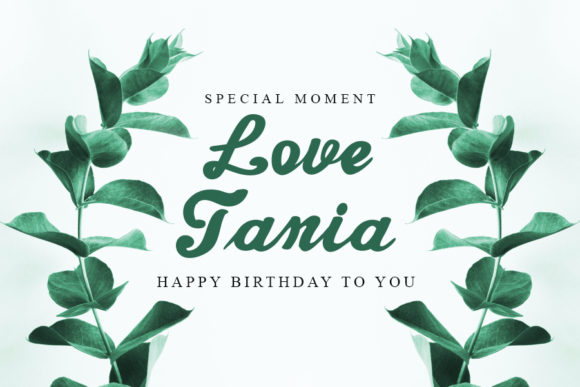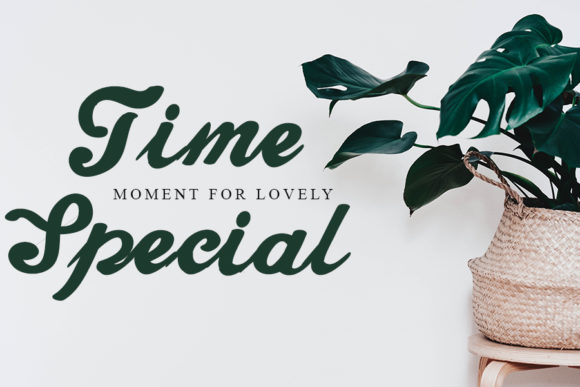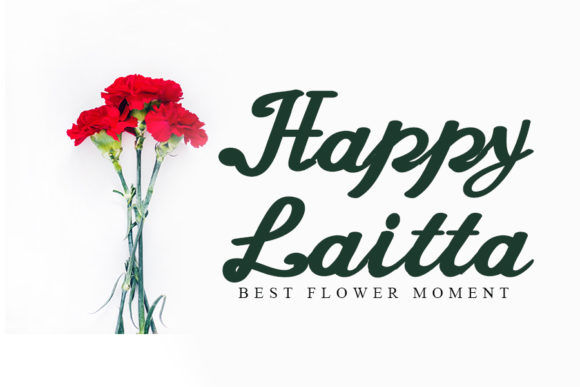
Bittale Font: Elevate Your Designs with Elegance and Sophistication
In the world of typography, a well-crafted font can make all the difference in elevating your designs to new heights. Introducing Bittale, an exquisite handwritten font that is sure to capture your heart. With its perfect blend of classy calligraphic influences and modern freshness, Bittale is poised to become your new favorite font.
The Story Behind Bittale
Bittale is more than just a font – it’s a masterpiece that showcases the art of handwriting in a digital format. Its creation is a testament to the power of typography in communicating emotions and personality. Whether you’re a designer, craftsperson, or simply someone who appreciates beautiful writing, Bittale is sure to leave a lasting impression.
What Makes Bittale Special?
So, what sets Bittale apart from other fonts? Here are a few key features that make it truly special:
- Classy Calligraphic Influences: Bittale’s roots in traditional calligraphy are evident in its elegant strokes and refined letterforms. Each character is carefully crafted to evoke a sense of sophistication and luxury.
- Contemporary and Fresh: Despite its classic influences, Bittale feels remarkably modern and fresh. Its unique blend of traditional and contemporary elements makes it perfect for designs that require a touch of elegance and whimsy.
- Handwritten with Love: Bittale’s handwritten nature gives it a personal and intimate feel that’s hard to replicate with digital fonts. Each letter and word is carefully crafted to convey a sense of warmth and personality.
Uses for Bittale Font
Bittale’s versatility makes it suitable for a wide range of design applications, including:
- Wedding and Event Design: Bittale’s elegant and sophisticated feel makes it perfect for wedding invitations, event branding, and other celebratory designs.
- Branding and Packaging: Bittale’s unique blend of classic and modern elements makes it an excellent choice for brands looking to establish a distinctive and memorable identity.
- Stationery and Paper Crafts: Bittale’s handwritten nature makes it a great fit for stationery, paper crafts, and other DIY projects that require a personal touch.
Tips for Using Bittale Effectively
To get the most out of Bittale, here are a few tips to keep in mind:
- Pair it with Contrasting Fonts: Bittale’s elegant feel can be paired beautifully with contrasting fonts to create visual interest and hierarchy.
- Experiment with Colors: Bittale’s versatility extends to color, so don’t be afraid to experiment with different hues and combinations to find the perfect fit for your design.
- Pay Attention to Kerning: As with any font, pay attention to kerning and letter spacing to ensure that your text looks polished and refined.
| Author | FL Space |
In conclusion, Bittale is an exquisite handwritten font that is sure to capture your heart. With its perfect blend of classy calligraphic influences and modern freshness, it’s the perfect choice for designers and crafters looking to elevate their designs to new heights. Whether you’re working on a wedding invitation, branding project, or paper craft, Bittale is sure to bring a touch of elegance and sophistication to your work.
So, what are you waiting for? Fall in love with Bittale and bring your projects to the highest levels! With its unique blend of elegance, sophistication, and whimsy, Bittale is poised to become your new favorite font.